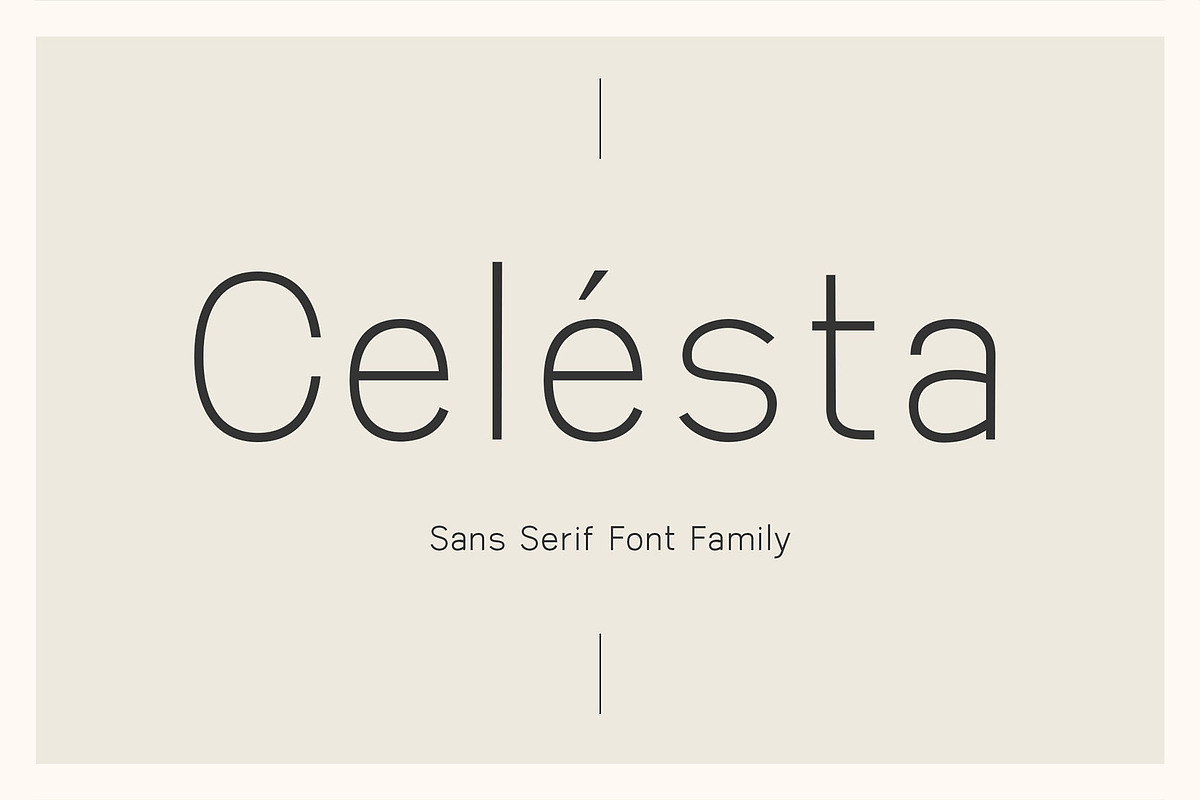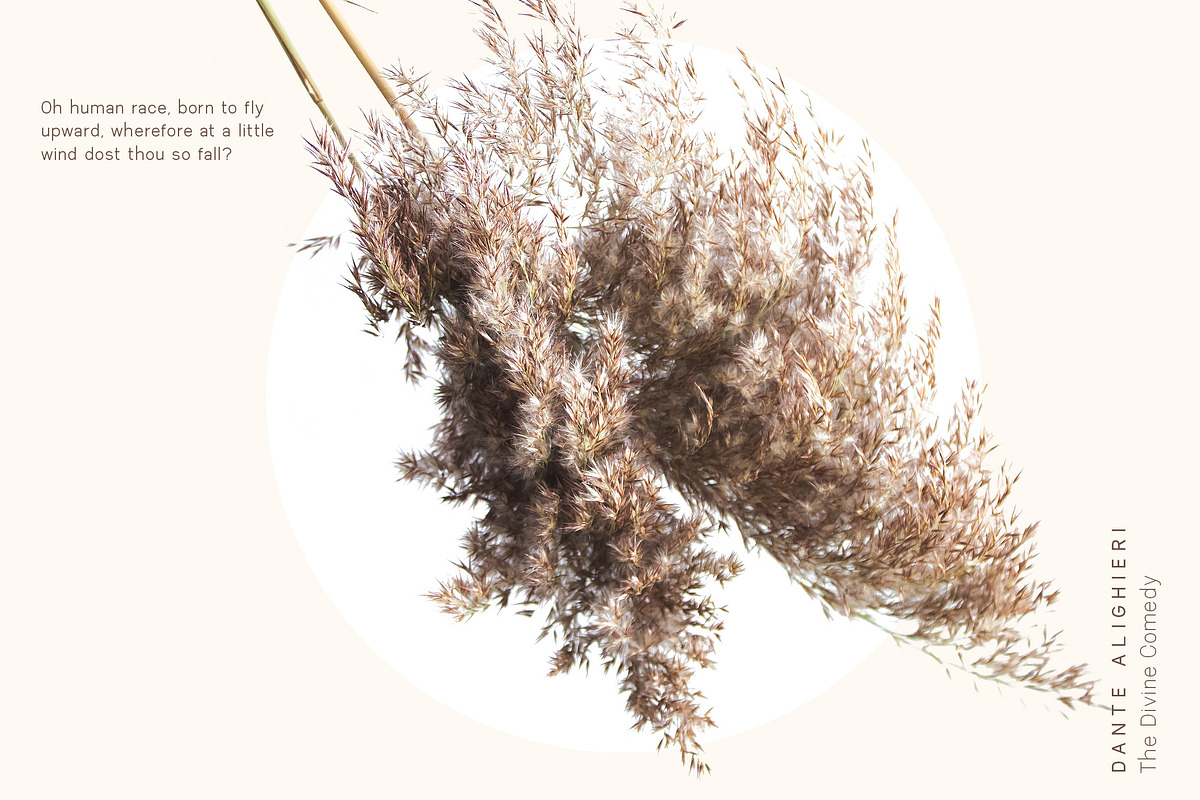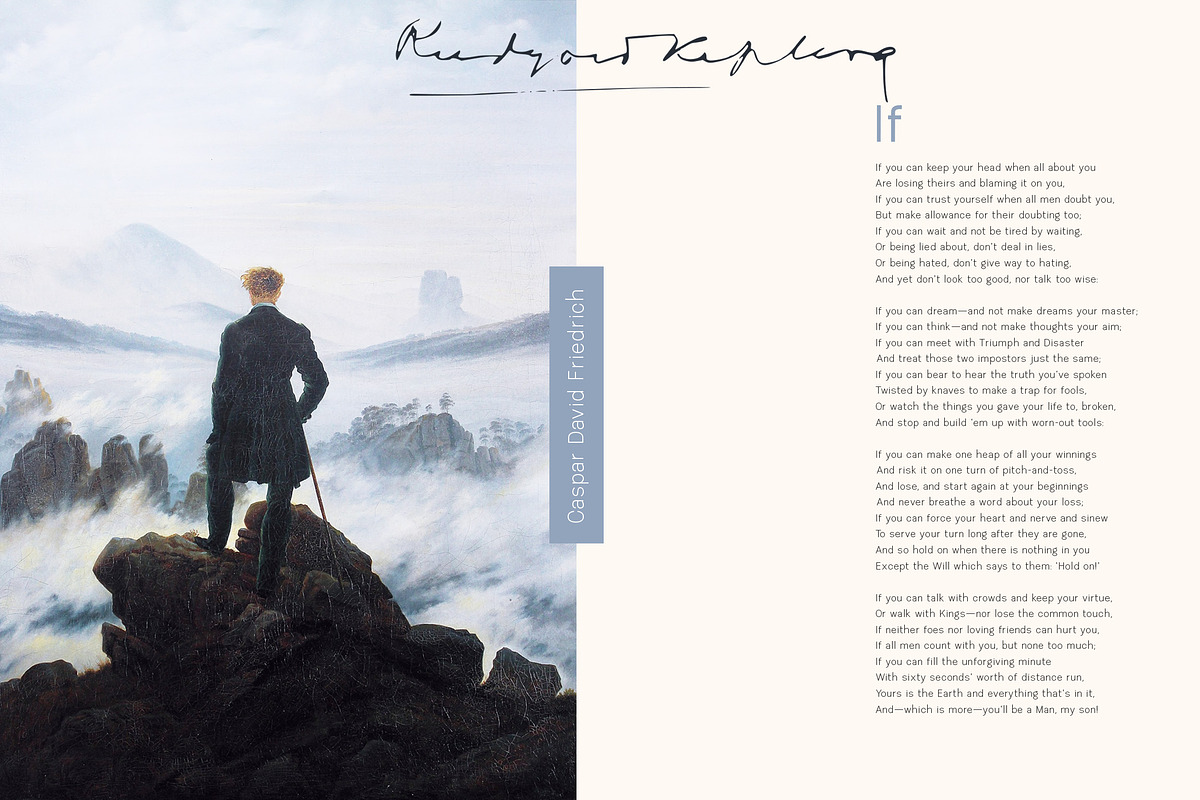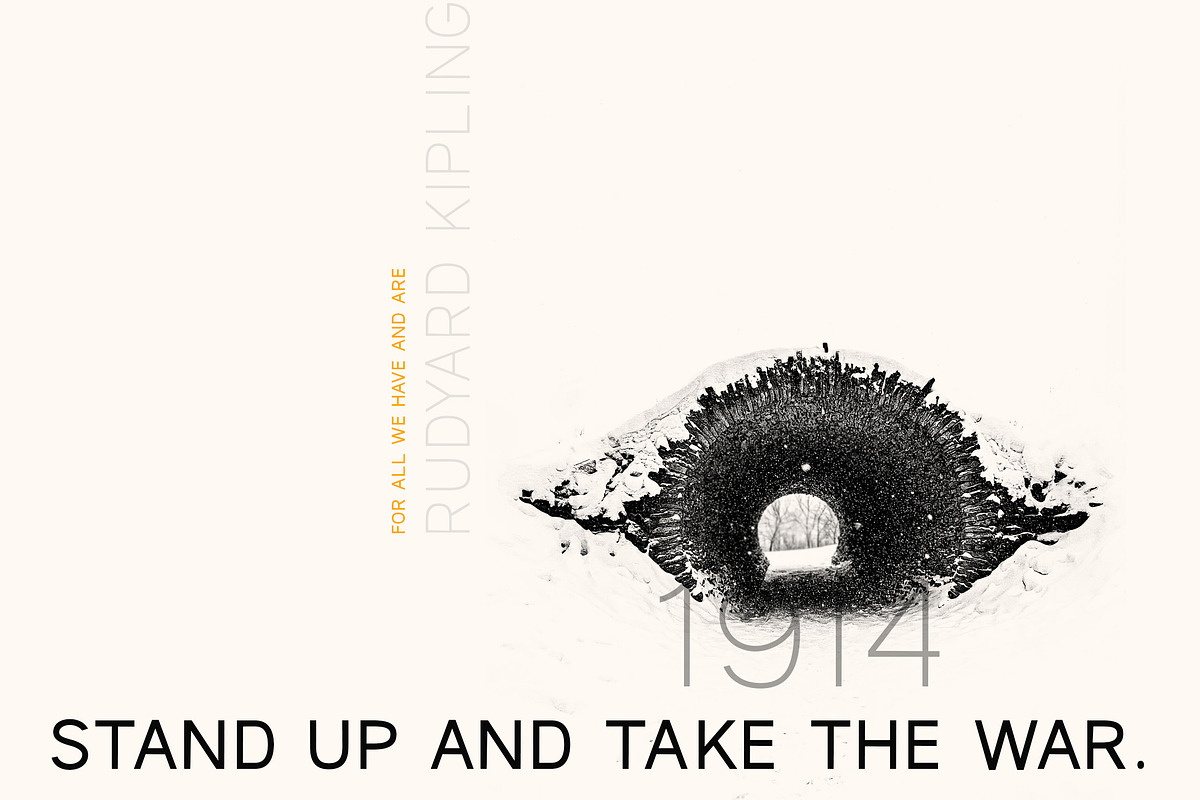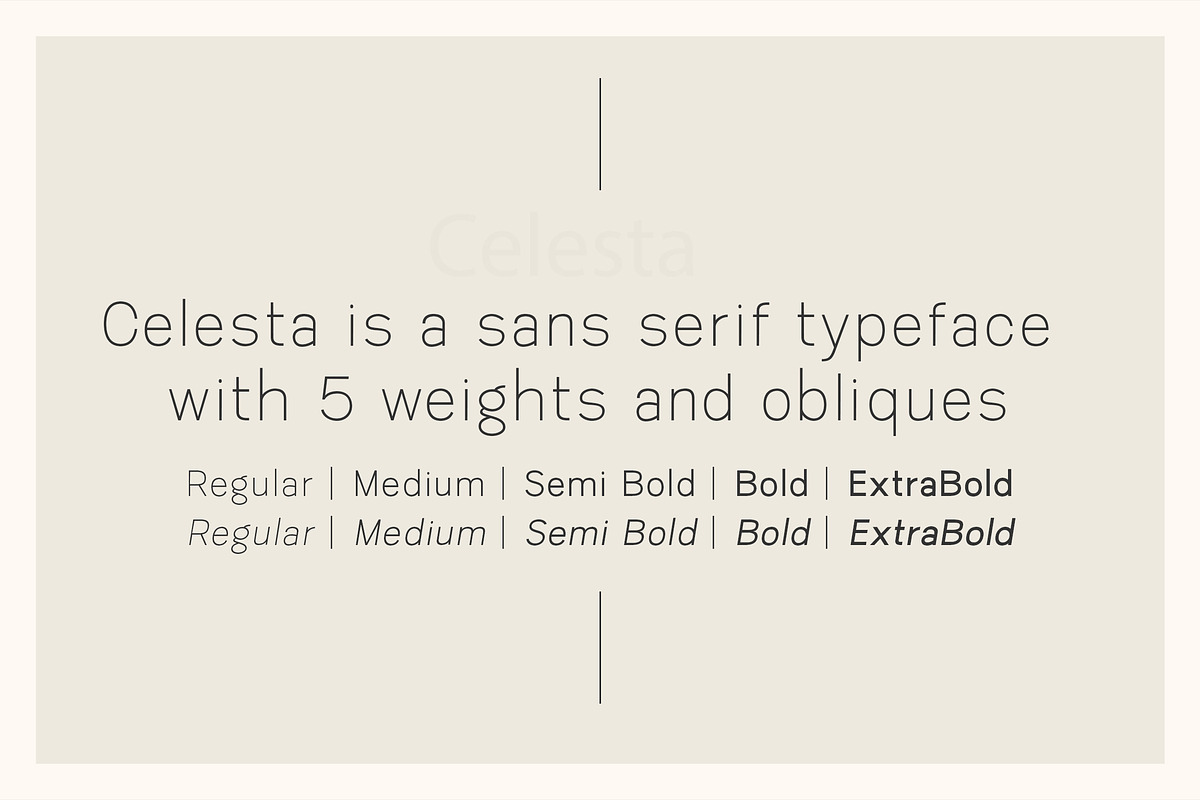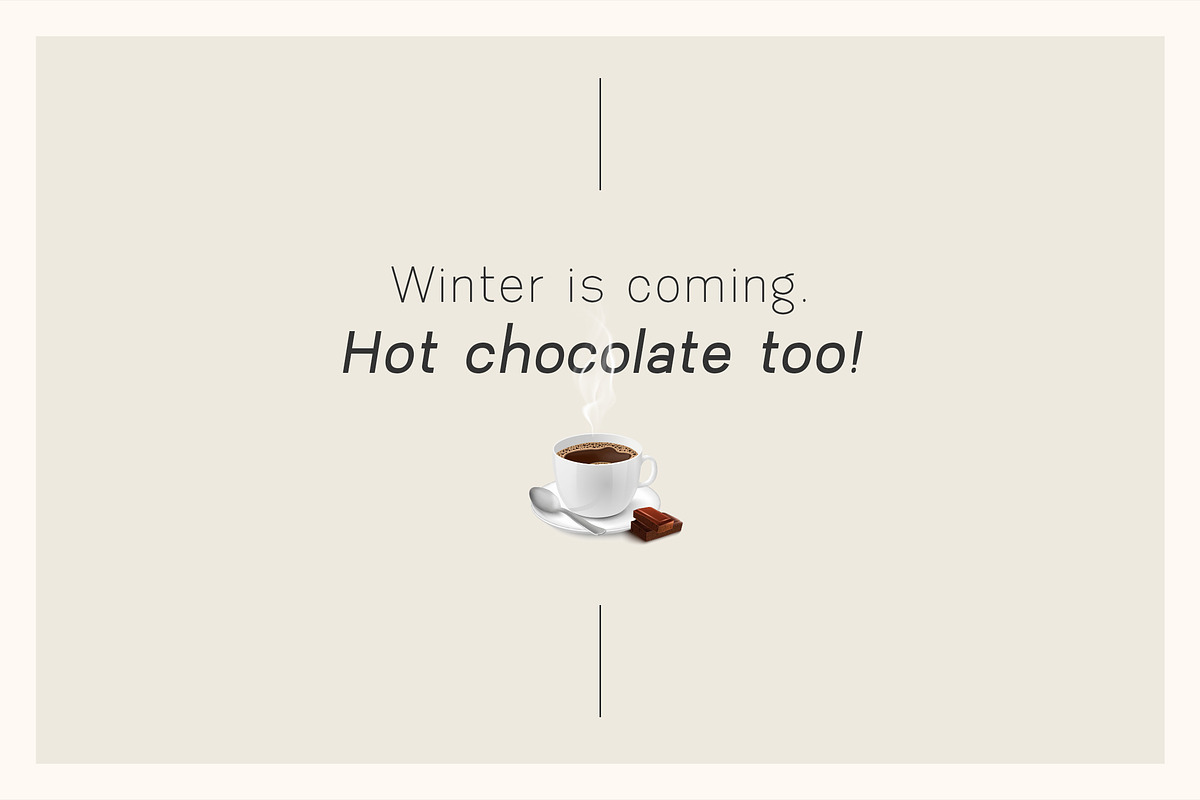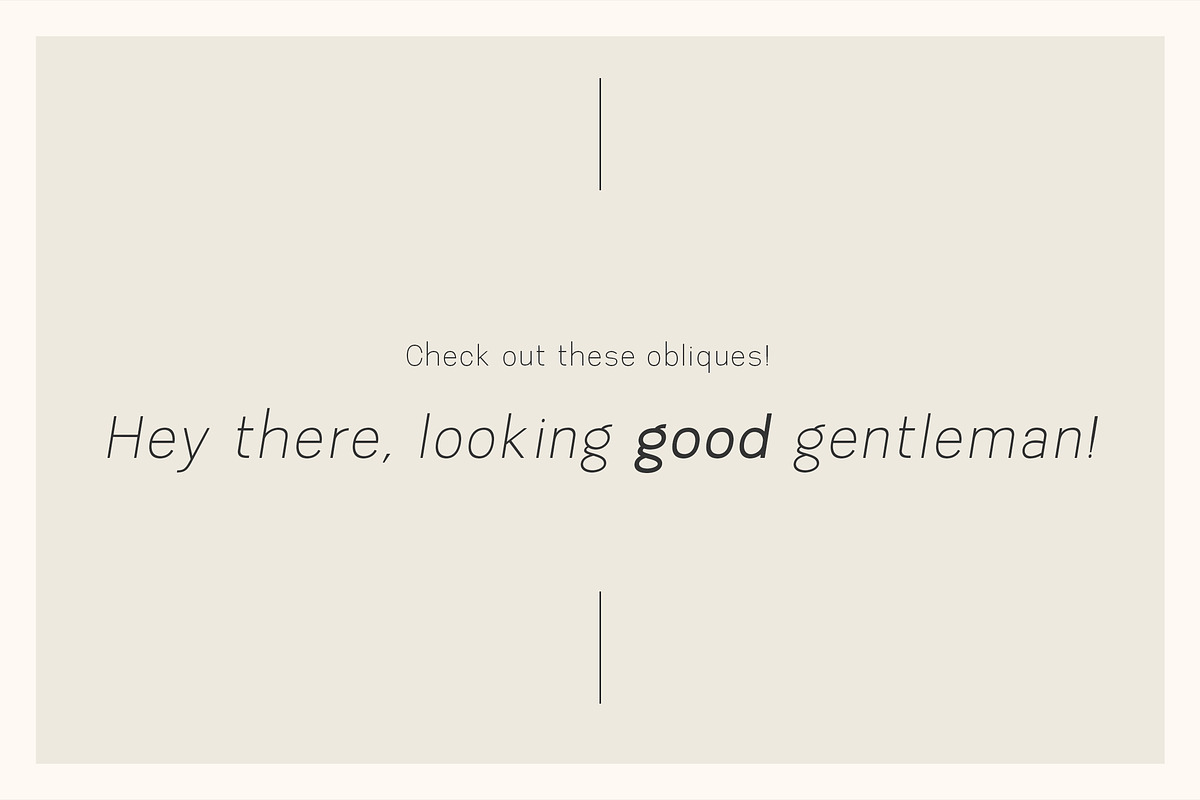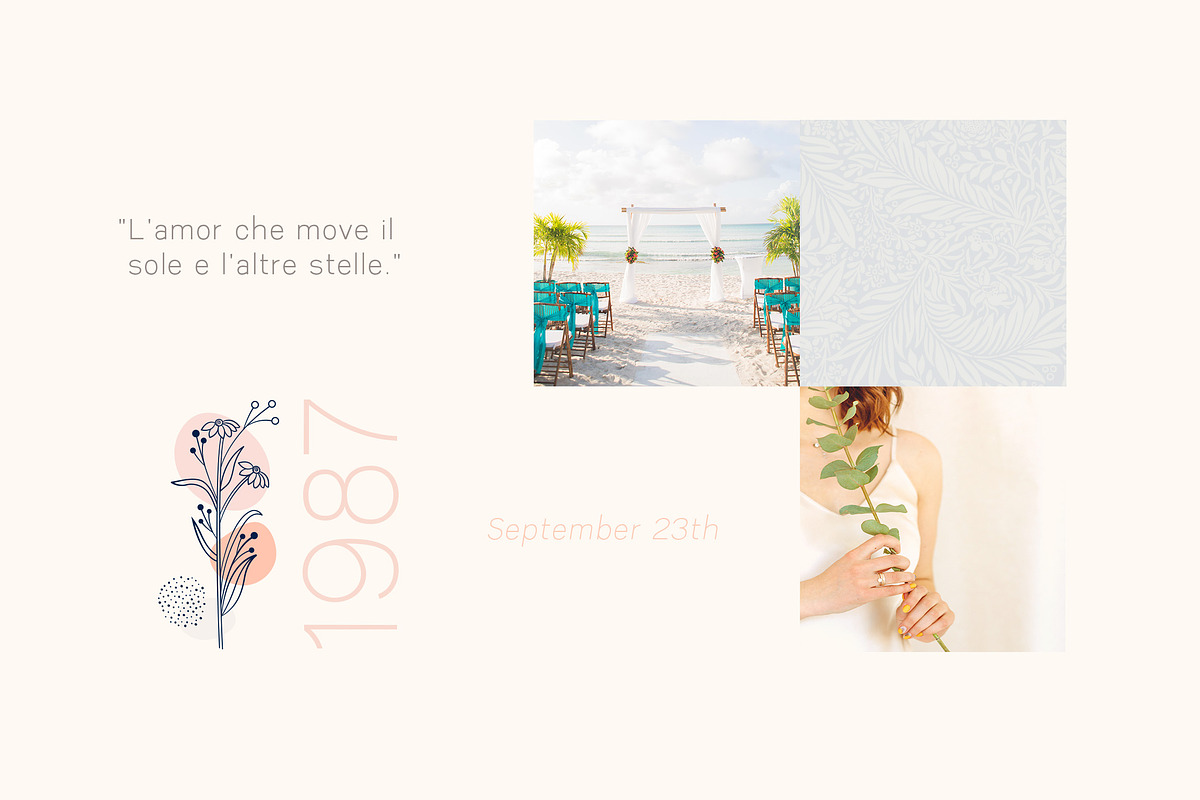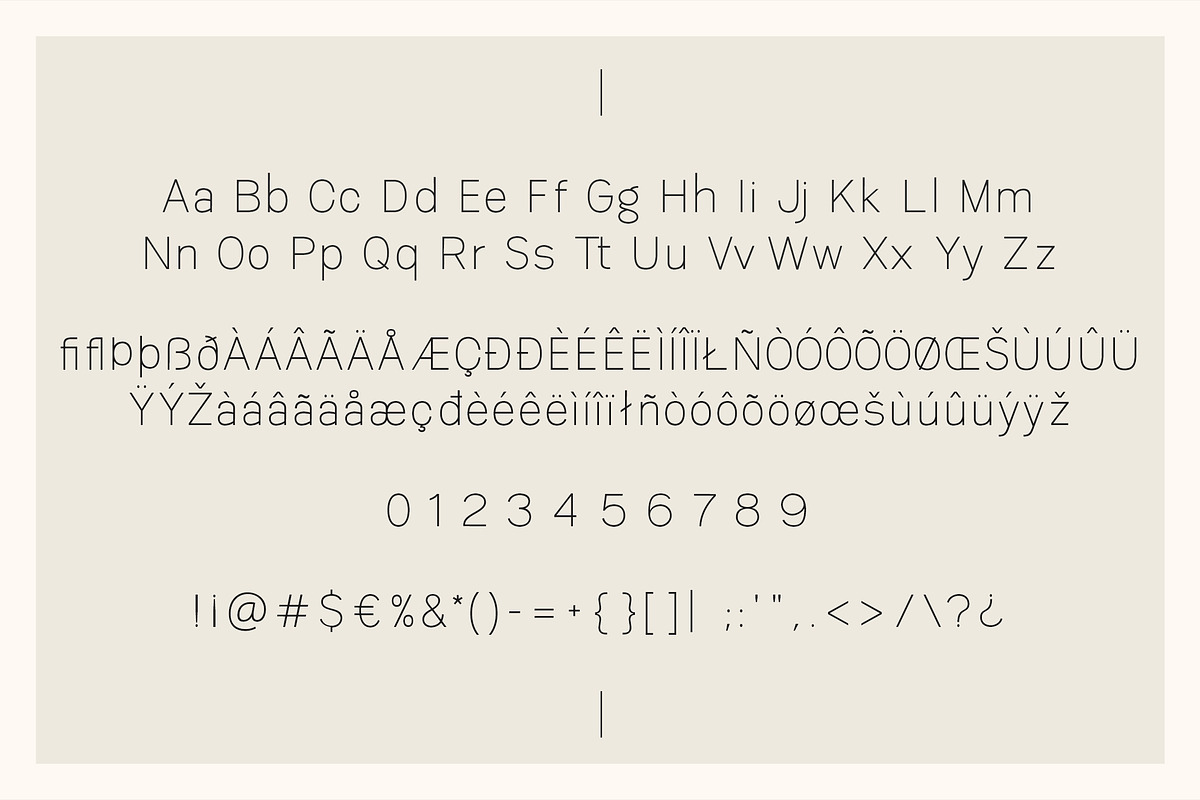
Celesta - Sans Serif Font
Celesta is a sans serif font which can be used for small text (5pt) or big titles.
The font family includes 10 fonts:
- Celesta Regular
- Celesta Regular Oblique
- Celesta Medium
- Celesta Medium Oblique
- Celesta Semibold
- Celesta Semibold Oblique
- Celesta Bold
- Celesta Bold Oblique
- Celesta Extra Bold
- Celesta Extra Bold Oblique
Language support: English, Spanish, Portuguese, Italian, French.